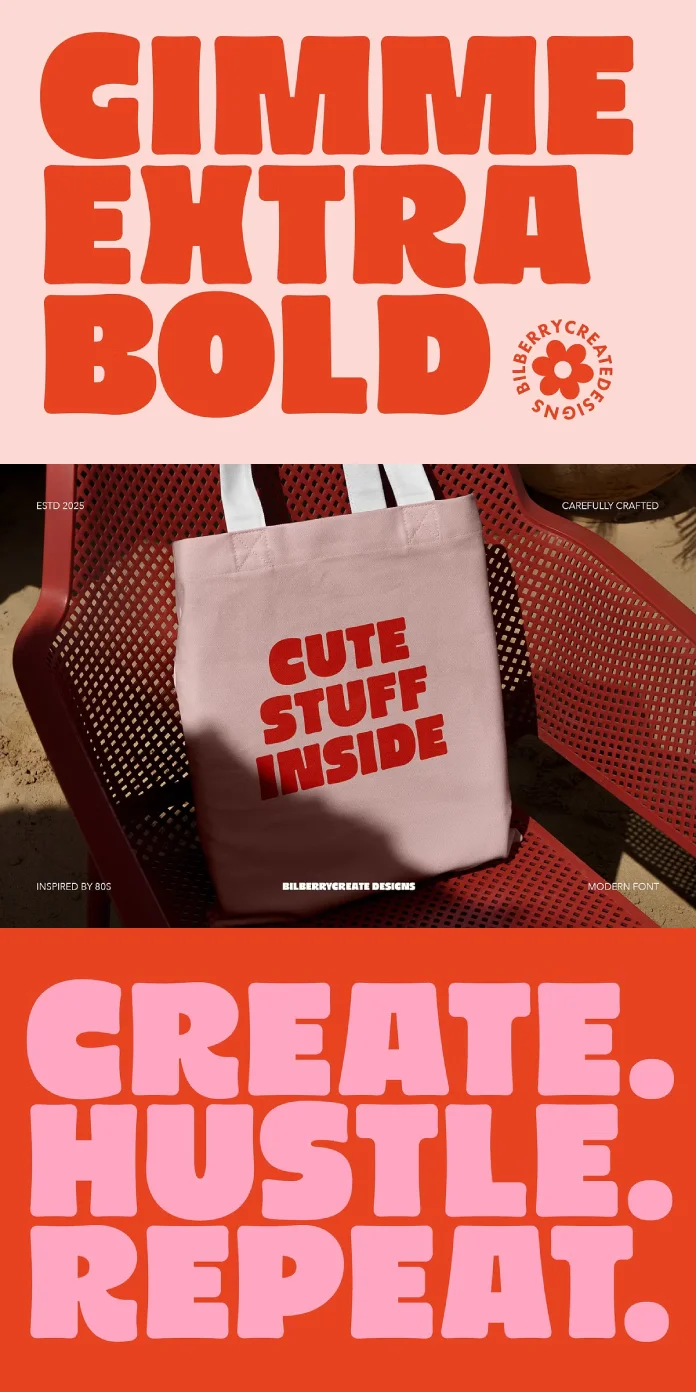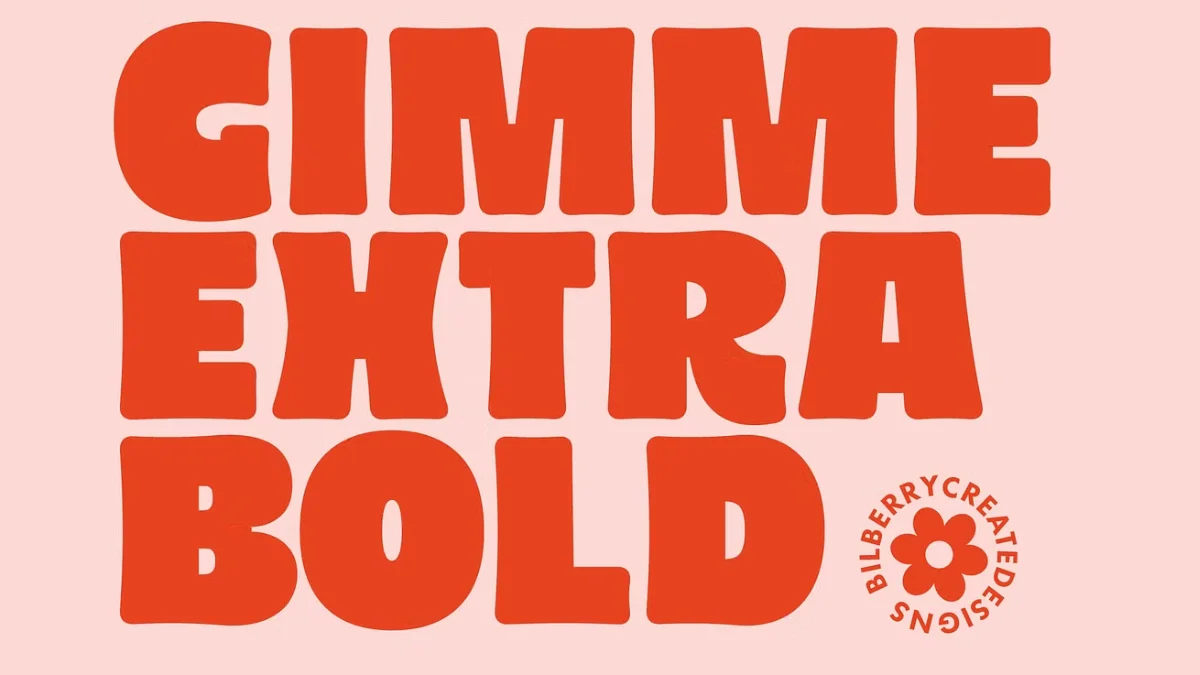
Rock Your Designs with The Gimme Extra Bold Font, a Groovy 80s Sans Serif Typeface!
Have you been searching for a font that just screams personality? Something that grabs attention and refuses to let go? Let’s chat about Gimme Extra Bold. It’s a fantastic sans-serif font crafted by the talented folks at BilberryCreates. Now, this isn’t just any typeface; Gimme Extra Bold packs a serious punch with its, well, extra bold weight and unmistakable 80s energy. Think groovy, think funky, think totally rad. It’s designed specifically to help your digital images stand out, making them more beautiful and unique. Ready to see how this bold font can electrify your own creative projects?
What Makes Gimme Extra Bold Stand Out?
What really gives Gimme Extra Bold its magnetic pull? Well, it proudly wears its 80s inspiration on its sleeve. You instantly get that groovy, funky feeling the moment you see it. It’s playful. Furthermore, it’s incredibly energetic. This font captures the essence of a vibrant decade known for its bold style. That ‘Extra Bold’ weight isn’t shy, either. It demands attention. Consequently, it’s perfect for making a strong visual statement. Need a headline to pop? Or a logo that lingers in the mind? Gimme Extra Bold delivers that impact.
Yet, because it’s a sans-serif font, it maintains a surprising level of clarity and modern appeal despite its retro roots. BilberryCreates clearly put thought into balancing that fun, nostalgic 80s font feel with practical usability. It’s undeniably a bold font, a true retro font, and absolutely a groovy font that adds character without sacrificing legibility entirely, especially at larger sizes. It’s this unique combination that sets it apart.
The Vibe: More Than Just Letters with Gimme Extra Bold
This font has vibe. Seriously. It’s more than just carefully designed shapes on a screen or page. Gimme Extra Bold brings an attitude, a retro coolness that’s hard to ignore. How does that translate visually? It feels confident, maybe a little rebellious, and definitely fun. How does that energy make you feel when you look at it? Can you picture that confidence boosting your next project?
It works incredibly well as a display font. Imagine headlines that practically jump off the page or screen. Think posters, social media graphics, or website banners that need immediate impact. Or consider it a potential logo font. Does your brand identity need a dash of playful energy and unmistakable character? This could be the secret ingredient. It’s certainly a unique, bold font for branding if you’re aiming for something memorable and distinctively retro. Finding the right BilberryCreates font can truly elevate a brand’s voice.
Unleashing Creativity: Where Can You Use This Font?
Okay, so where can you actually use Gimme Extra Bold? The possibilities are wonderfully broad, stretching across digital and print mediums. Imagine sending out invitations – perhaps for a lively birthday bash, a retro-themed party, or even a uniquely styled wedding announcement – using this font. Instantly more fun and engaging, right? It stands out as a fantastic creative font for invitations.
Think about scrapbooking projects. Gimme Extra Bold can add instant retro flair and personality to your layouts and captions. What about product packaging? If you want your items to pop on the shelf and convey a sense of fun or nostalgia, this font could be a game-changer. Even home decor items, like custom prints or signage, could get a funky boost. Consider printing patterns or quotes on fabrics for pillows or bags. BilberryCreates designed this sans-serif typeface to be versatile, encouraging you to experiment. So, the real question is, what amazing things will you create with it?
Why Choose Gimme Extra Bold for Your Next Project?
So, with countless fonts available, why should Gimme Extra Bold make your shortlist? It comes down to its unique blend of potent personality and practical function. You get that unmistakable, vibrant 80s font vibe, cranked up to eleven with an emphatic extra bold weight. It’s the perfect choice if your project needs something genuinely groovy, undeniably funky, yet still grounded in the clean lines of a sans-serif font.
Gimme Extra Bold by BilberryCreates is waiting to inject its retro magic and bold confidence into your creations. Give it a try and see where its funky, groovy personality takes your designs! It might just be the spark you were looking for.